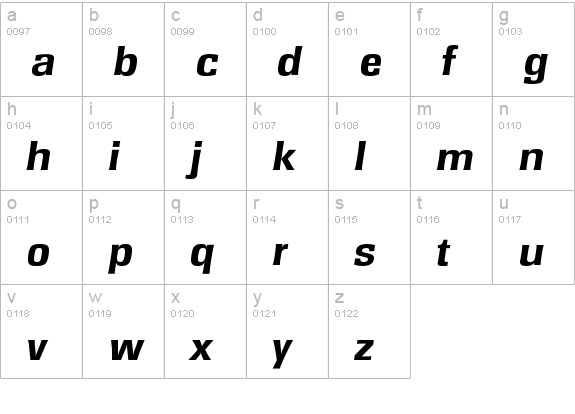
Rochester-BoldIta Font Details
Rochester-BoldIta is a striking and elegant font that exudes a sense of sophistication and style. Its bold italic design adds a touch of flair and personality to any project, making it the perfect choice for headings, titles, and other attention-grabbing text. This font is not only visually appealing but also highly versatile, suitable for a wide range of design applications. Whether you're creating a sleek modern website, a stylish magazine layout, or a classy invitation, Rochester-BoldIta will help you achieve a polished and professional look. What's even better is that Rochester-BoldIta is completely free to download at FontsMarket.com. This means you can access this beautiful font without any cost and use it in your projects without any restrictions. Don't miss out on this amazing opportunity to enhance your designs with Rochester-BoldIta's unique charm and elegance.